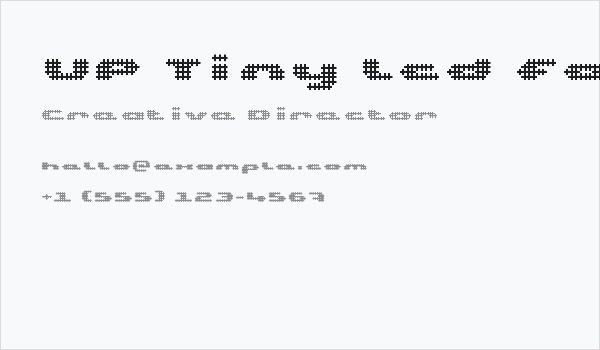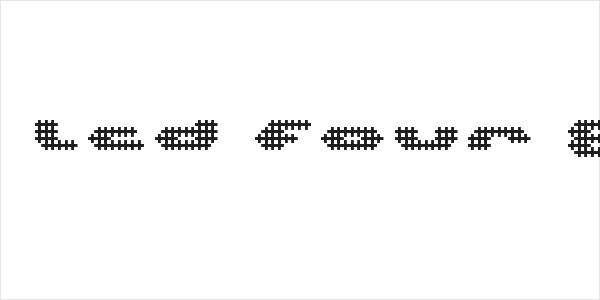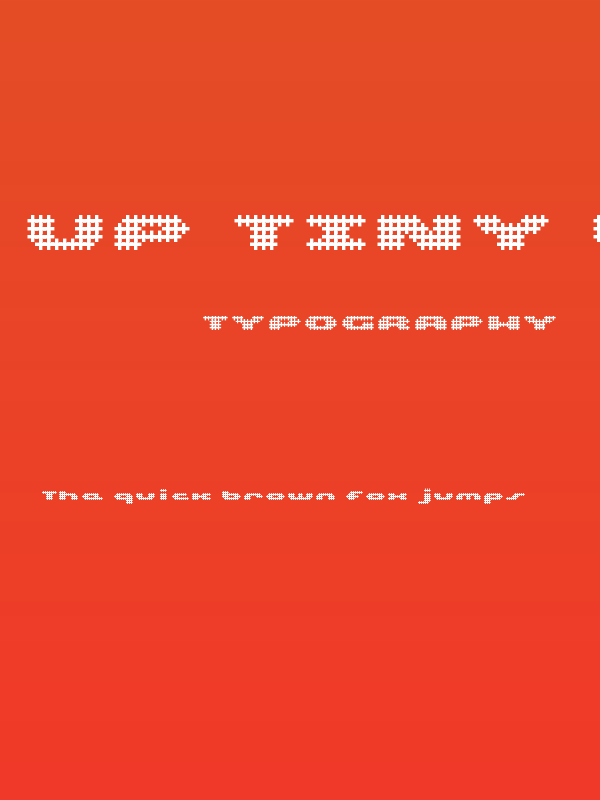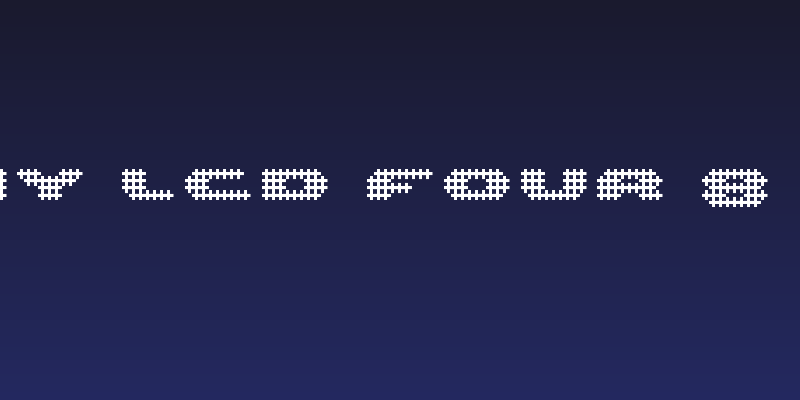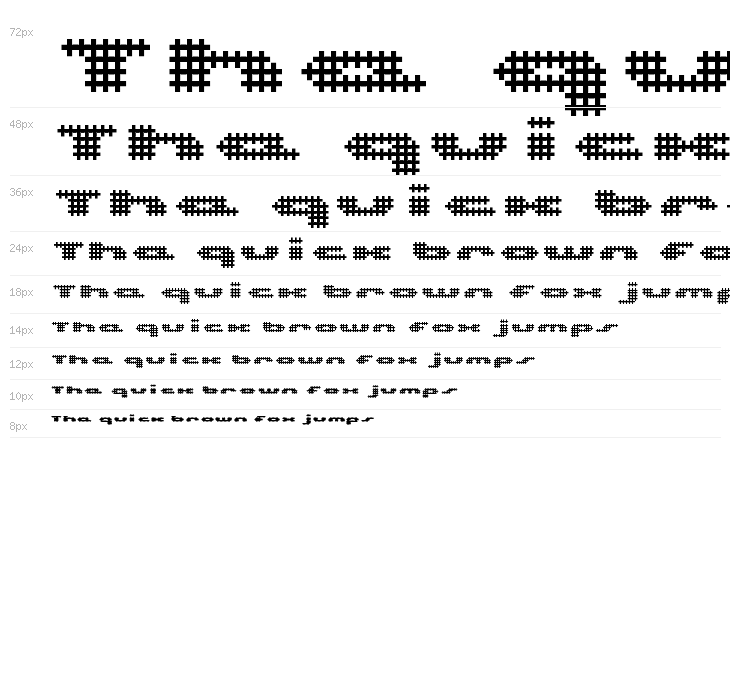
UP Tiny lcd four 8 decoC Font
UP Tiny lcd four 8 decoC Description
This font features a unique pixelated design, reminiscent of early digital displays and retro gaming aesthetics. Each character is constructed from a grid of small squares, creating a distinct and eye-catching pattern. The font maintains a consistent structure across both uppercase and lowercase letters, as well as numerals and special characters. The pixelated style gives it a playful and nostalgic feel, making it ideal for projects that aim to evoke a sense of vintage technology or digital art. Its bold appearance ensures readability even at smaller sizes, while the uniform spacing between characters provides a clean and organized look.
| Use Case | Headlines, Logos, Digital Art |
| Proposed Projects | Ideal for retro-themed designs, video game graphics, digital art projects, and tech-related branding. |